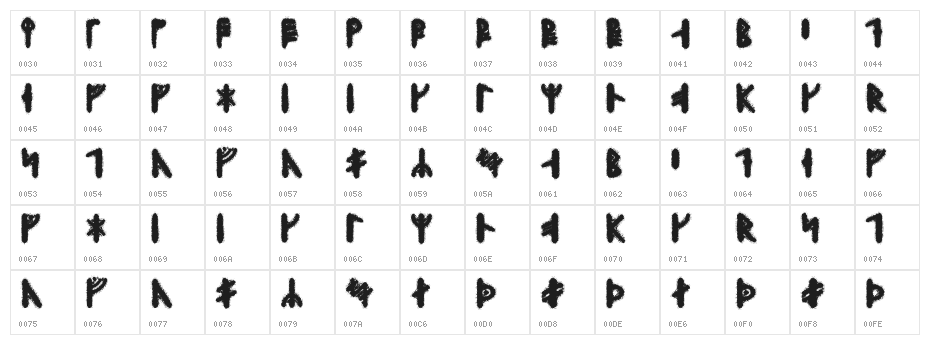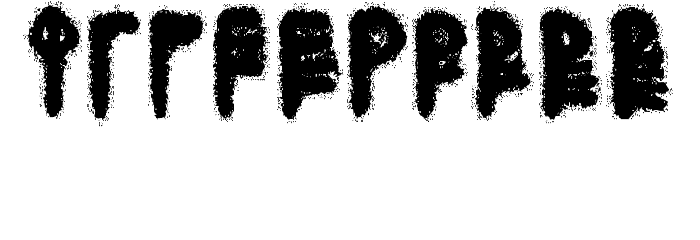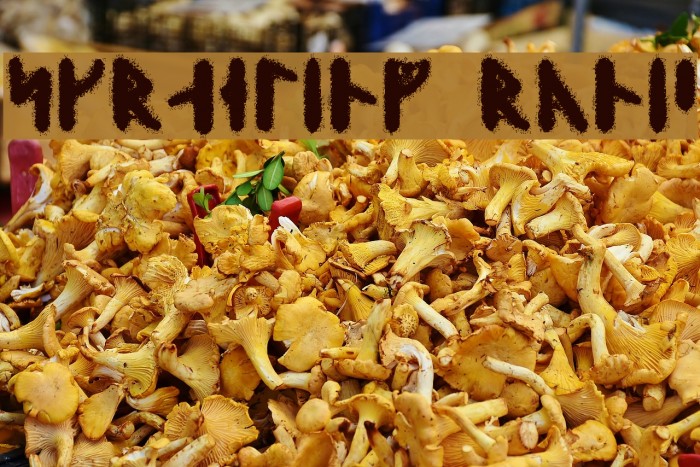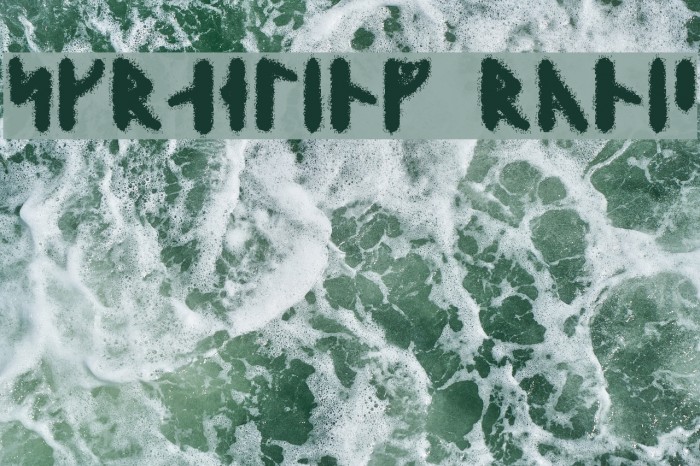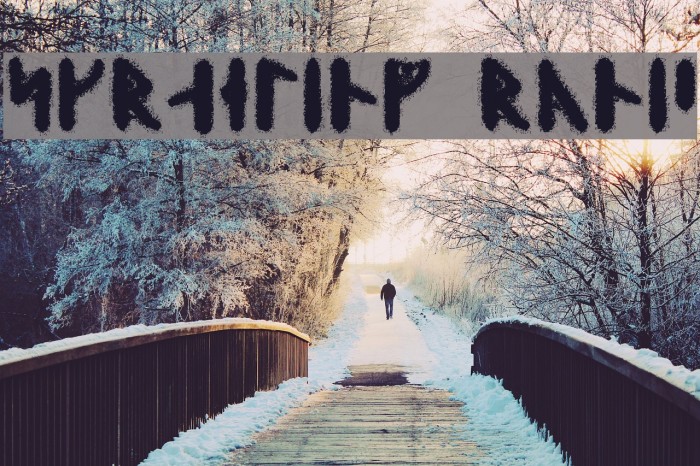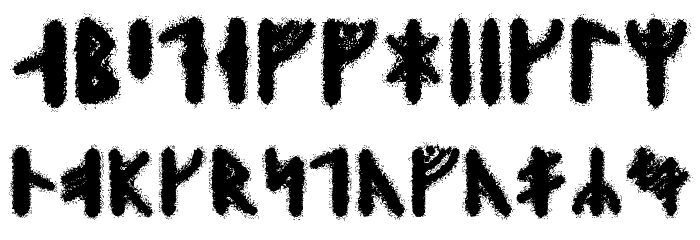
Skraeling Runic Font
Skraeling Runic Description
This font features a unique and ancient runic style, reminiscent of historical inscriptions. The characters are bold and rugged, with a hand-carved appearance that suggests a connection to ancient Nordic or Germanic cultures. Each letter is distinct, with sharp angles and a slightly irregular form that adds to its authenticity. The font's texture gives it a weathered look, as if it has been etched into stone or wood. This style is perfect for projects that require a historical or mystical aesthetic, providing a sense of mystery and antiquity.
| Overall Style | Vintage |
| Use Case | Logos, Headlines, Themed Events |
| Proposed Projects | Ideal for historical reenactment materials, fantasy novels, game design, or any project needing a mystical or ancient touch. |